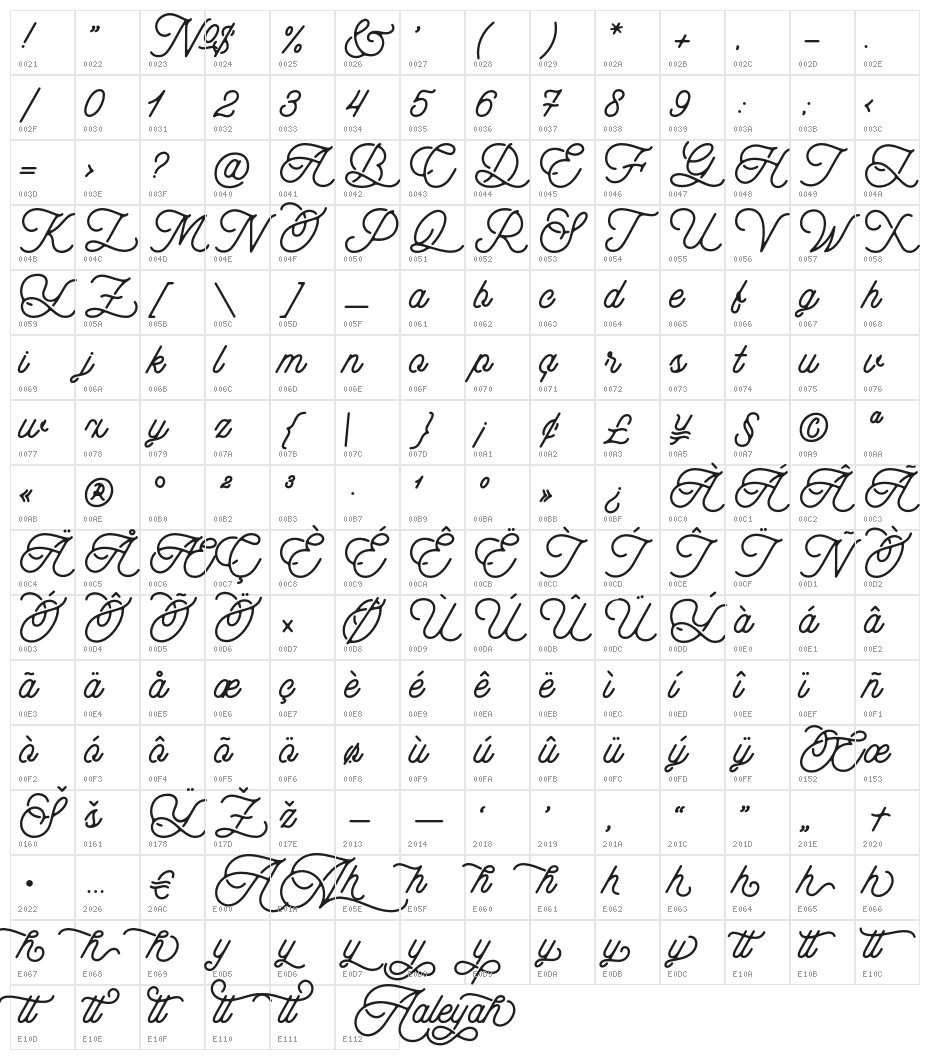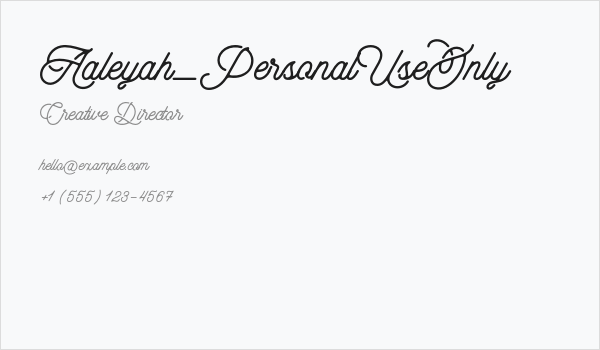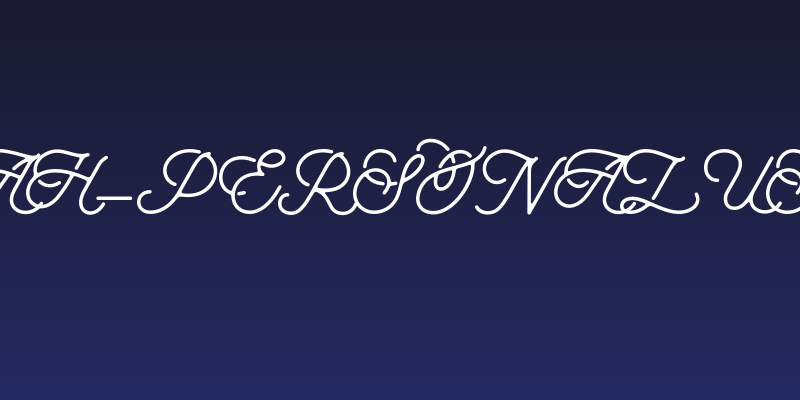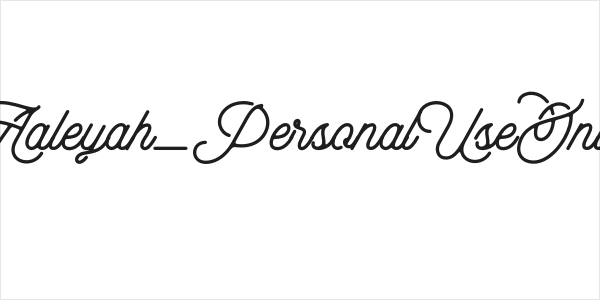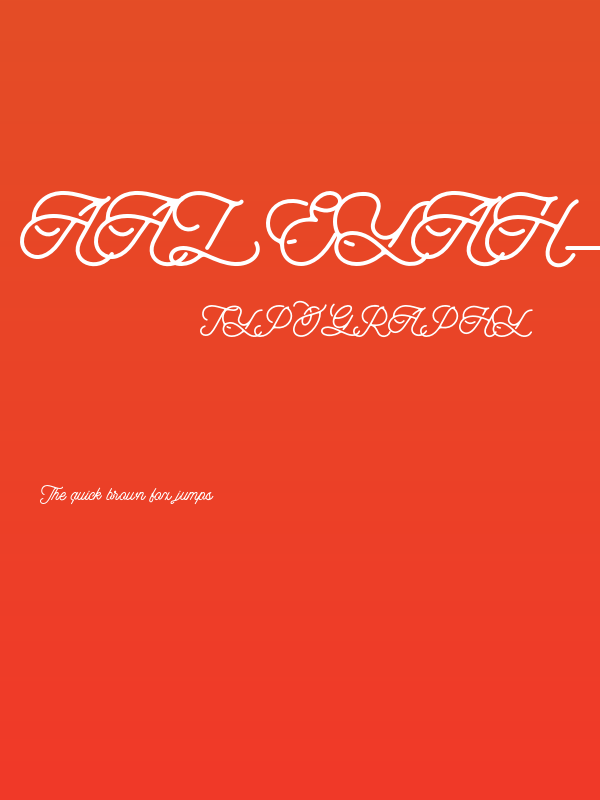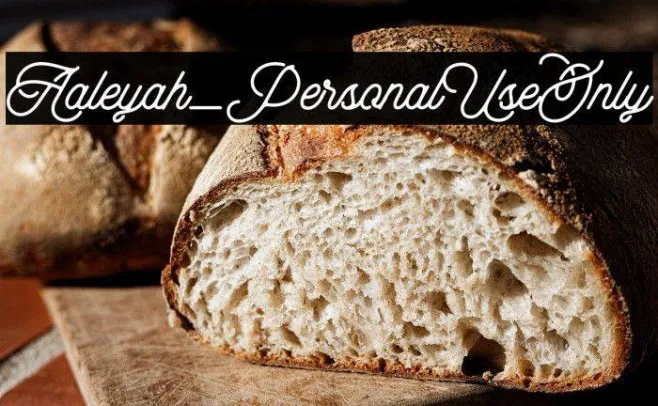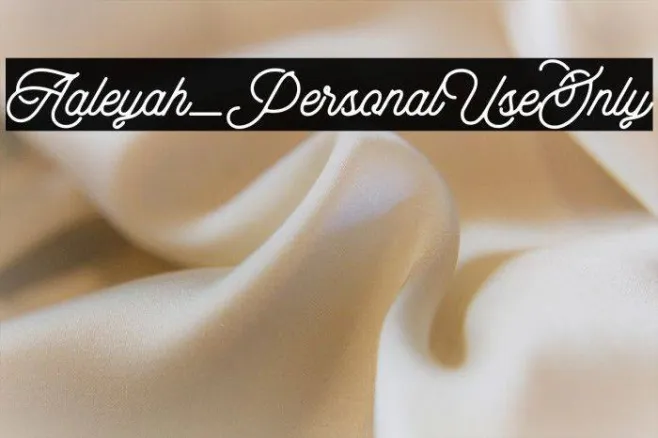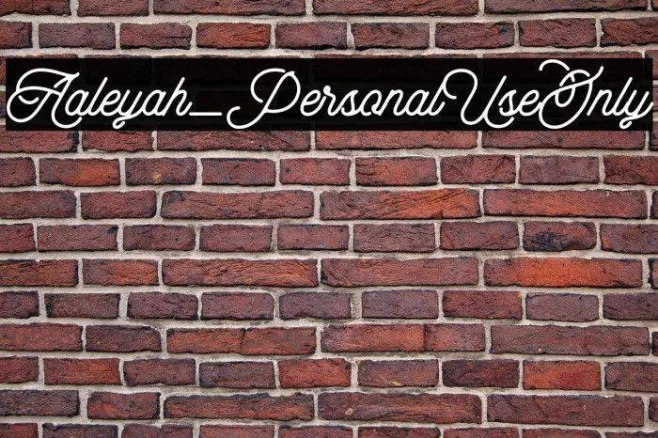
Aaleyah_PersonalUseOnly Font
Aaleyah_PersonalUseOnly Description
This elegant script font features a flowing, cursive style with intricate loops and swashes, giving it a sophisticated and decorative appearance. The uppercase letters are particularly ornate, with elaborate flourishes that add a touch of luxury and refinement. The lowercase letters maintain a smooth and connected flow, enhancing readability while retaining the font's artistic flair. The numerals and special characters are consistent with the overall style, offering a cohesive look across all elements. This font is ideal for projects that require a touch of elegance and class.
| Proposed Projects | Wedding invitations, luxury branding, elegant stationery, and decorative headings. |